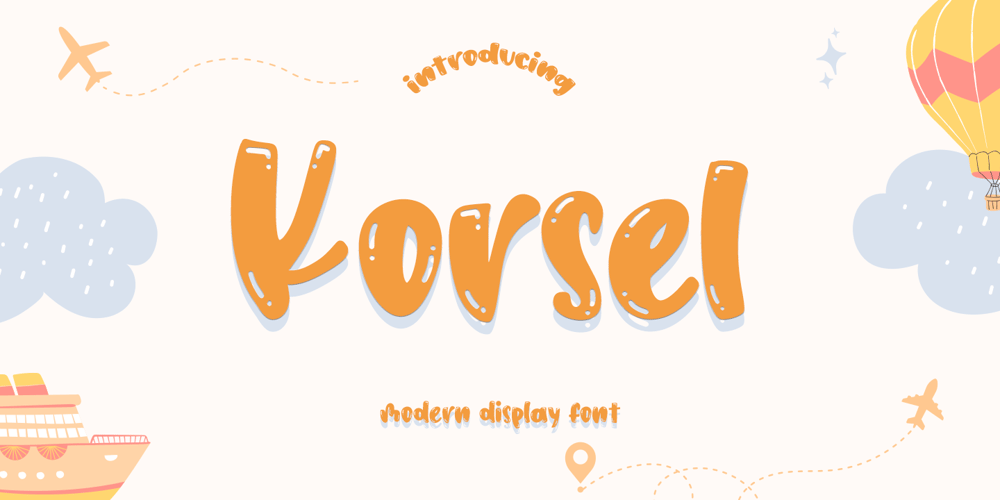
Korsel
Korsel font
Korsel Font Family was designed by Muhammad Zaini and published by Cocodesign. Korsel contains 1 styles and family package options. Korsel handwritten font script display. This font was designed by handwriting, and it has a modern and unique forms of calligraphy, the writing style is very natural. Belgia has a very unique style of calligraphy, it is very suitable for use in the work of modern design.